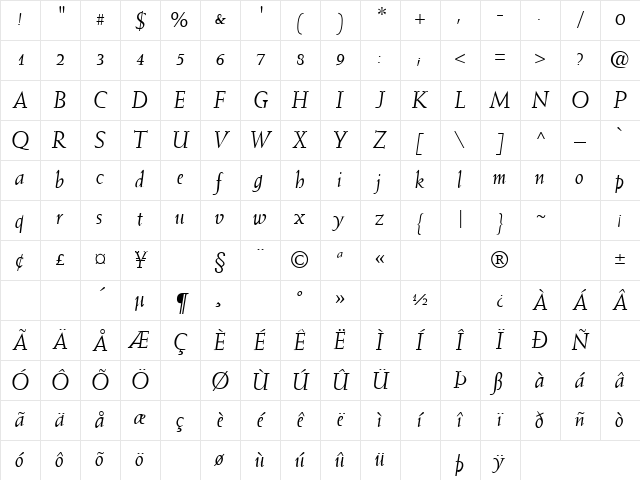
Get Your Wings 4 Regular
Design Context for Get Your Wings 4
Get Your Wings 4 is a composed and adaptable typeface that performs quietly and consistently across a wide range of design contexts.
Pro Tip: Use Get Your Wings 4 in both headline and body roles to test its range before committing to a single application.